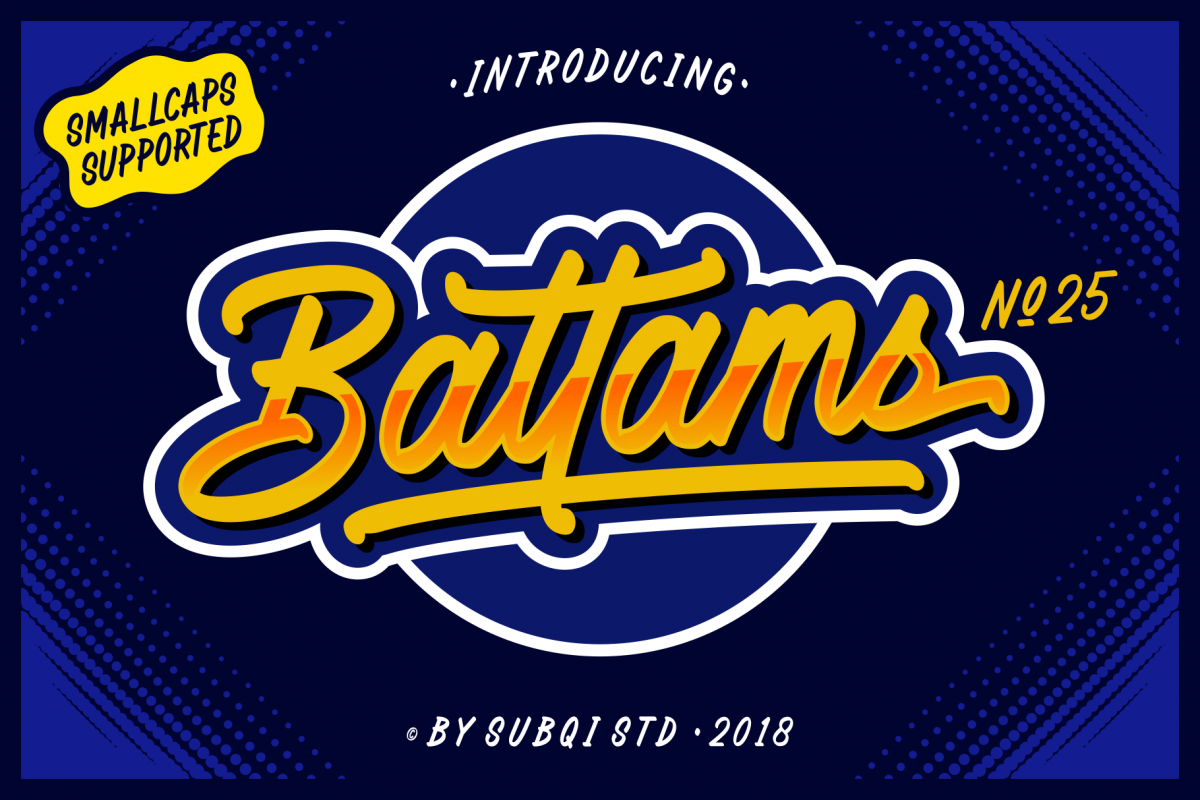
Battams No 25 Pro
Introducing Battams No 25 , a versatile typeface for every needs. This font is made by constant weight with oval tip line. We want to make a stylist font that the uppercase version is usable. So we also made the smallcaps on this one. You could switch on the smallcaps button features to use it. We also use contextual alternates not just stylistic alternates, because it's very useful. So don't forget to turn on the contextual alternates feature on your software. So, what are you waiting for?WHAT YOU GET
• Ligatures ✔
• Stylistic Alternates ( SS01 - SS05 ) ✔
• Discretionary Ligature ✔
• Smallcaps Supported ✔
• PUA Encoded ✔
• Contextual Alternates ✔
• Swashes ✔
• 370+ Glyphs ✔
MULTILINGUAL ACCENT
ŁŽžŠŒšŸÀÁÂÃÄÅÆÇÈÉÊËÌÍÎÏÐÑÒÓÔÕÖØÙÚÛÜÝÞßàáâãäåæçèéêëìíîïðñòóôõöøùúûüýþÿ